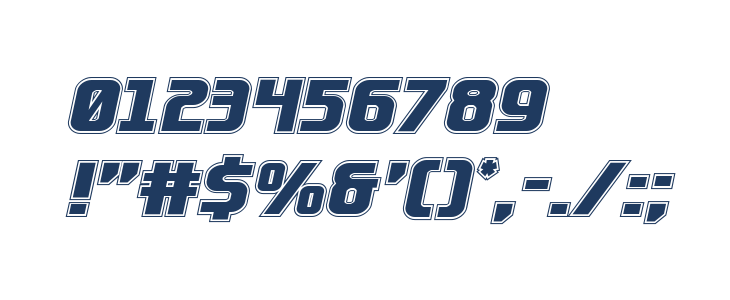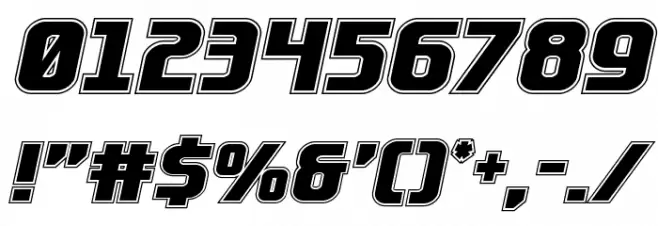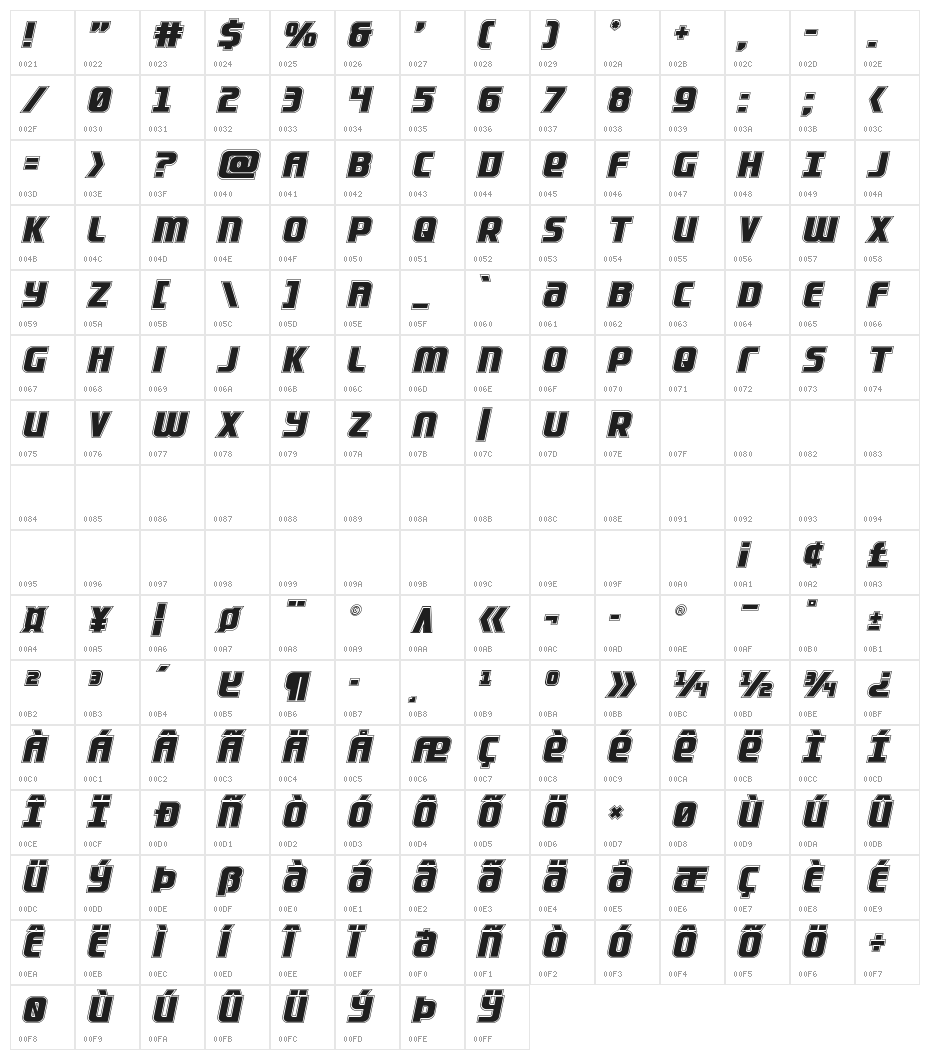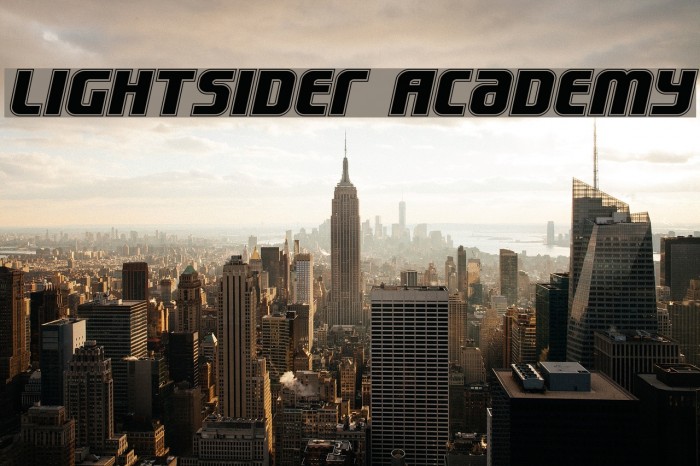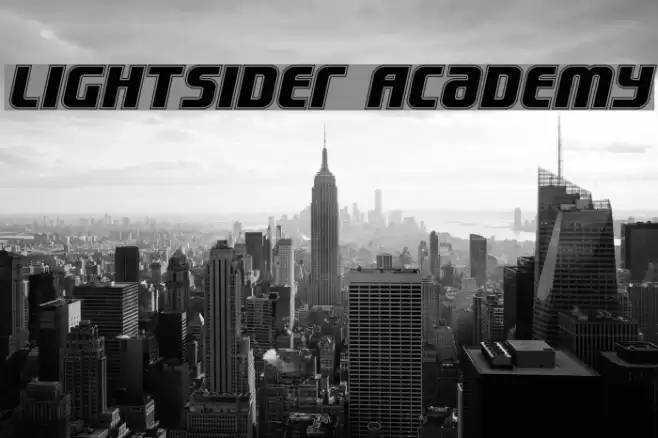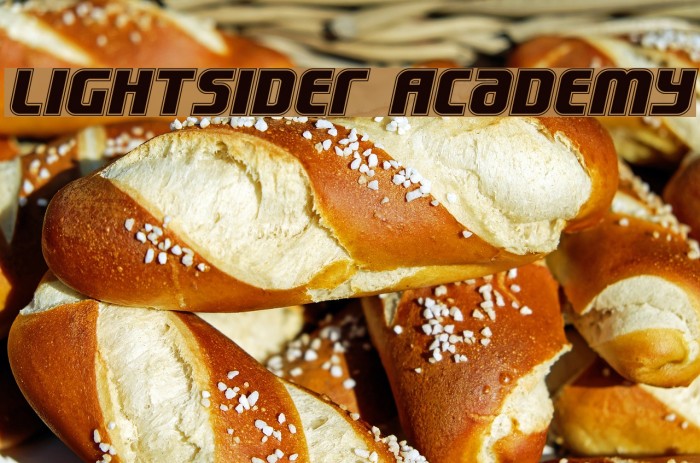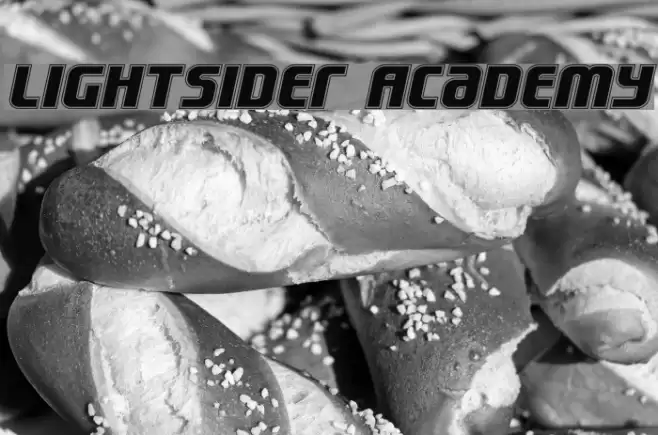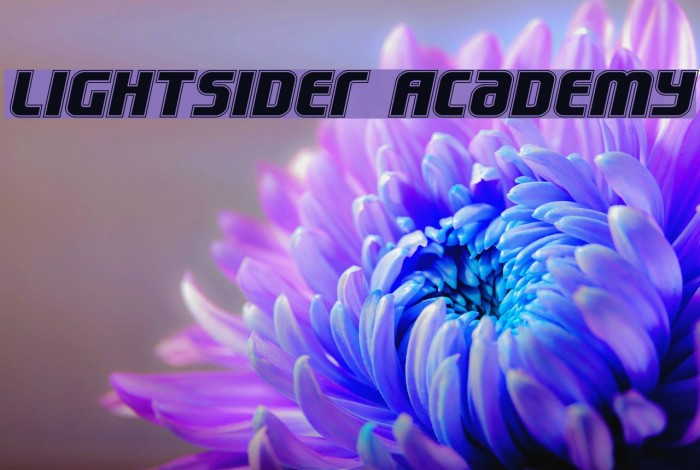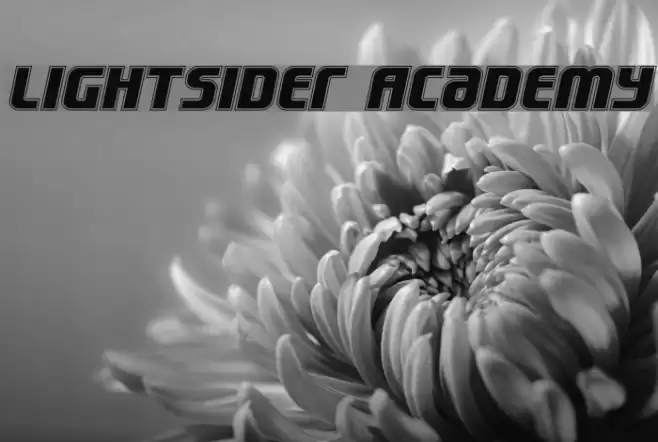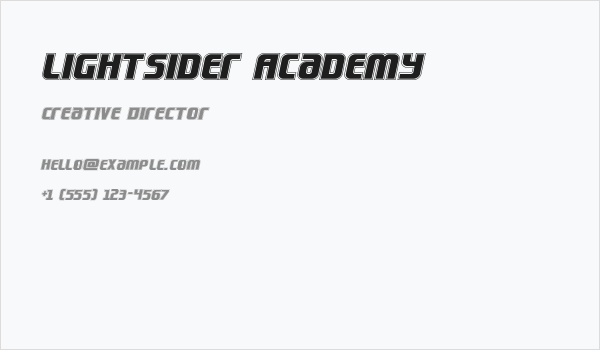
Lightsider Academy Font
Lightsider Academy Description
This font features a bold, futuristic design with a strong presence. The characters are outlined, creating a striking contrast between the filled and unfilled spaces. The uppercase and lowercase letters maintain a consistent style, with rounded edges and a slightly condensed form. The numbers and special characters follow the same aesthetic, ensuring uniformity across all glyphs. This font's unique style makes it ideal for attention-grabbing designs.
Overall StyleFuturistic
Proposed ProjectsIdeal for sci-fi themed posters, video game titles, tech branding, and futuristic event flyers.